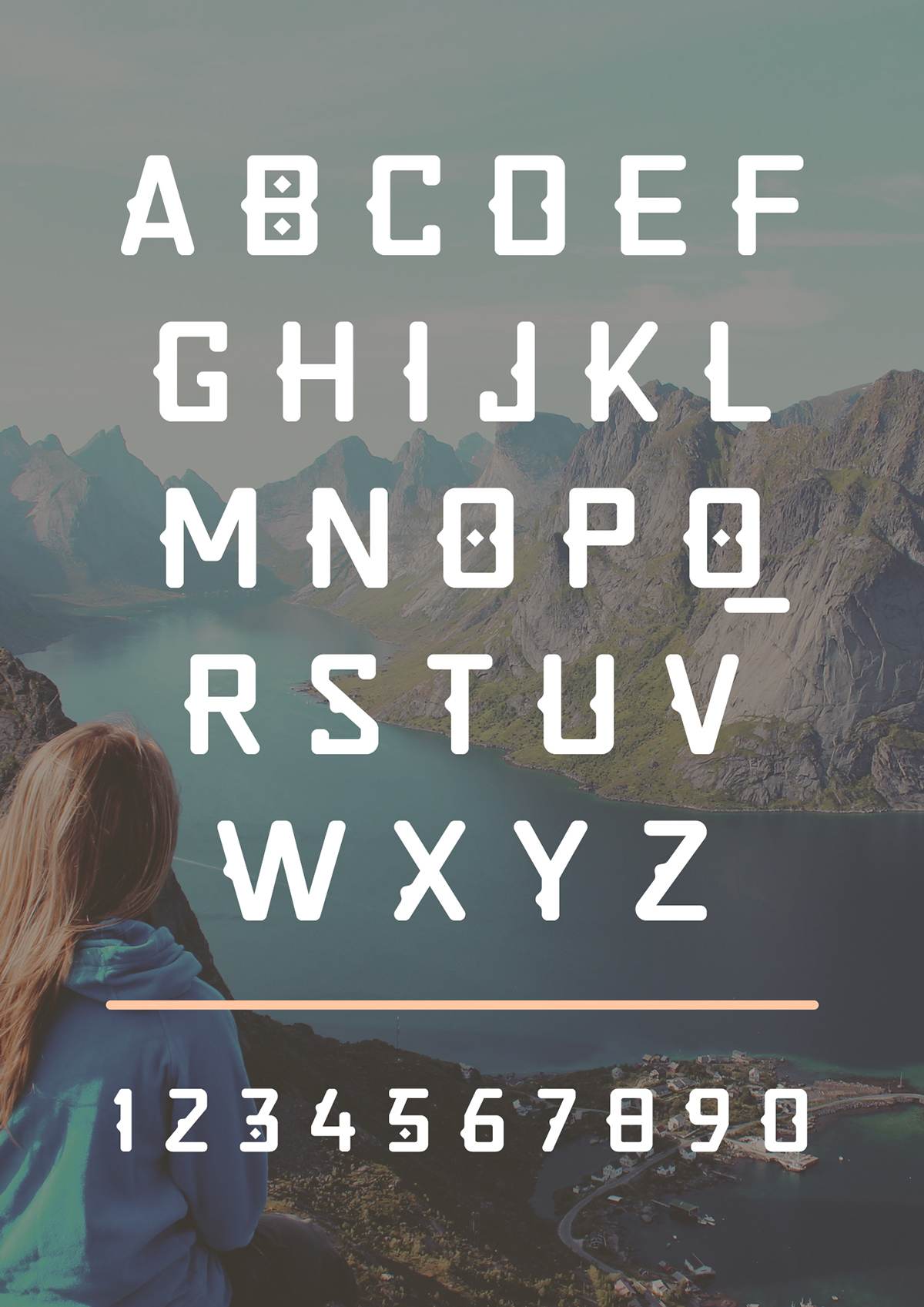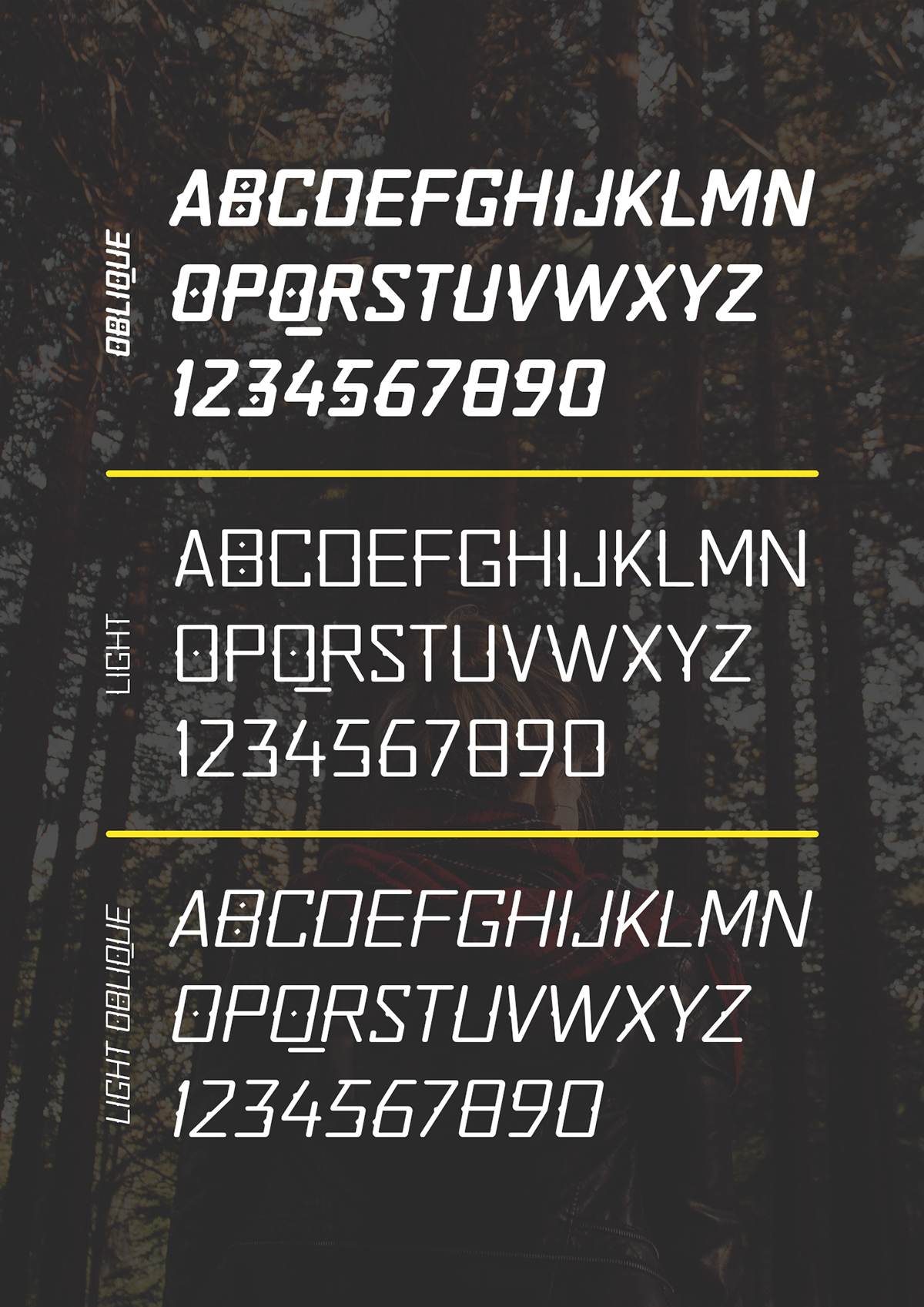
Quirko Font is a family of 4 free inspired by tall, rounded sans-serif typefaces. The presence of rounded triangular protrusions and the inclusion of diamond-esque elements in certain glyphs imparts a conspicuously eccentric aesthetic to the typeface. This, combined with its assertive appearance and multiple weights, makes Quirko a suitable typeface for both digital and print media. Each font comprises over 300 glyphs. Designed by Shrenik Ganatra.